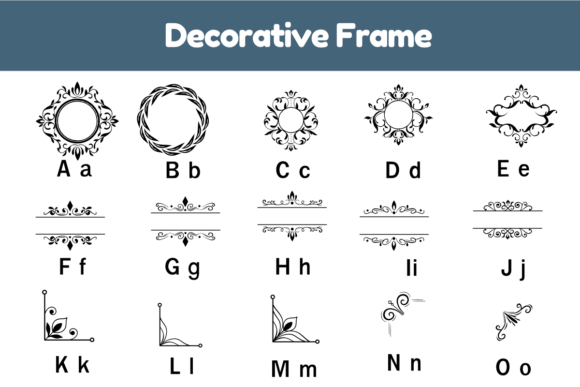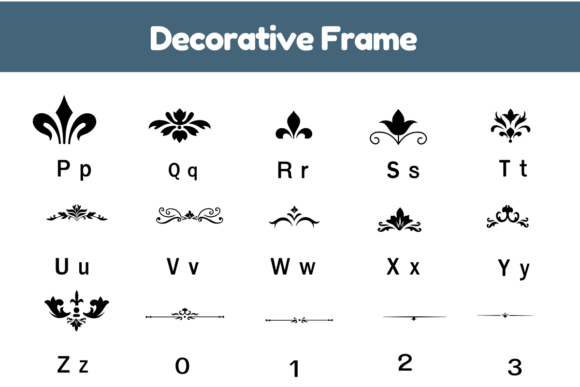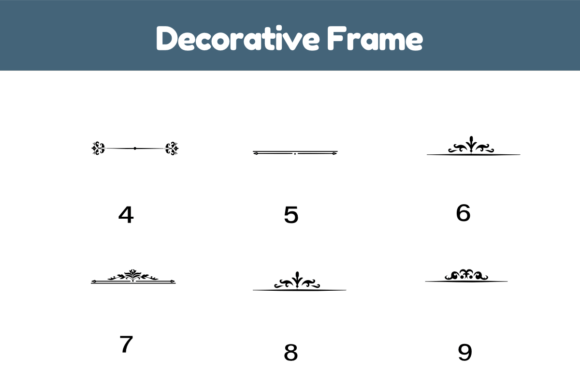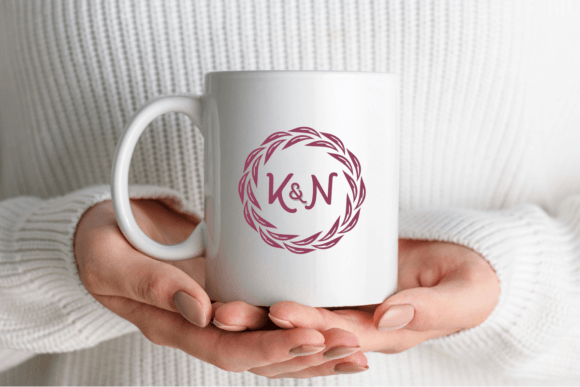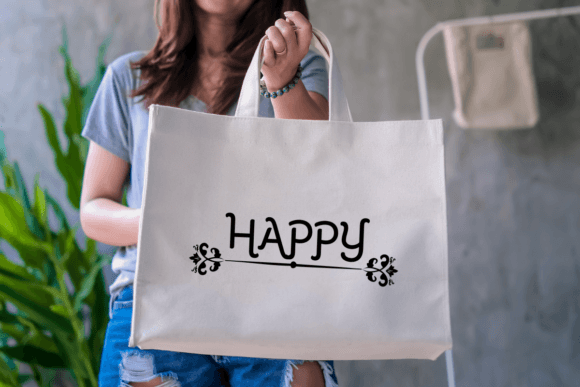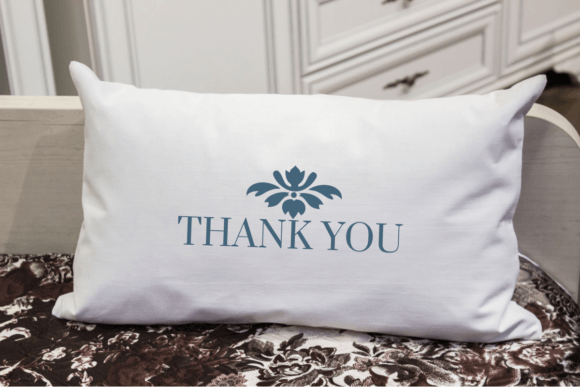
Elevate Your Designs with Decorative Frame Font: A Comprehensive Guide
Are you looking for a creative way to add a touch of elegance and style to your designs? Look no further than the Decorative Frame Font, a unique dingbat font featuring a variety of artistic frames. In this article, we’ll explore the world of decorative frames and how this font can take your designs to the next level.
What is a Decorative Frame Font?
A decorative frame font is a type of dingbat font that features a collection of artistic frames, borders, and accents. These fonts are designed to help designers and crafters add a touch of personality and style to their projects. The Decorative Frame Font is a stunning example of this type of font, featuring a wide range of beautiful frames that can be used to enhance text or images.
Features of Decorative Frame Font
The Decorative Frame Font is a versatile and easy-to-use font that offers a range of features, including:
- Variety of Frames: Each character in the font represents a different frame, giving you access to a wide range of artistic borders and accents.
- Elegant and Stylish: The frames in this font are designed to add a touch of elegance and style to your designs, making them perfect for a range of projects.
- Customizable: You can use the frames in this font to create custom borders and accents that reflect your personal style.
Uses for Decorative Frame Font
The Decorative Frame Font is a versatile tool that can be used in a range of design projects, including:
- Graphic Design: Use the frames in this font to add a touch of elegance and style to your graphic designs, such as brochures, flyers, and posters.
- Crafting: The font is perfect for crafters who want to add a personal touch to their projects, such as scrapbooking, card making, and journaling.
- Digital Design: Use the frames in this font to enhance your digital designs, such as social media graphics, blog posts, and website headers.
- Print Design: The font is ideal for print designers who want to add a touch of personality to their designs, such as business cards, invitations, and certificates.
Tips for Using Decorative Frame Font
Here are some tips for getting the most out of the Decorative Frame Font:
- Experiment with Different Frames: Try out different frames to see which ones work best for your project.
- Mix and Match: Combine different frames to create unique and interesting borders and accents.
- Adjust Size and Color: Experiment with different sizes and colors to find the perfect look for your design.
- Use with Other Fonts: Pair the Decorative Frame Font with other fonts to create visually interesting and dynamic designs.
The Decorative Frame Font is a powerful tool that can help designers and crafters add a touch of elegance and style to their projects. With its wide range of artistic frames, ease of use, and versatility, this font is perfect for a range of design applications. Whether you’re a graphic designer, crafter, or digital designer, the Decorative Frame Font is a must-have addition to your design toolkit.